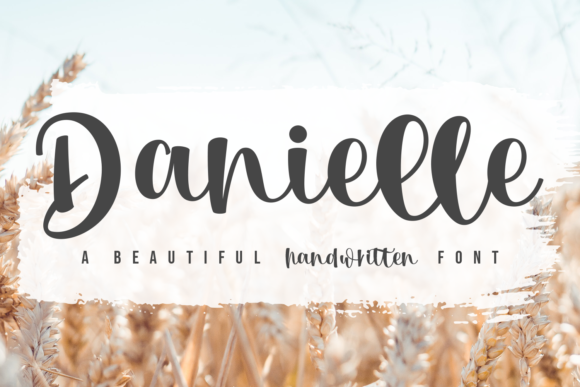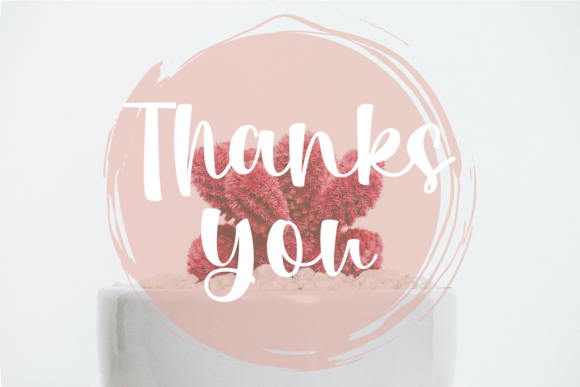
About Danielle Font
Danielle is a lovely script font featuring charming, playful characters that seem to dance along the baseline. Add this font to your most creative ideas, and notice how it makes them stand out!